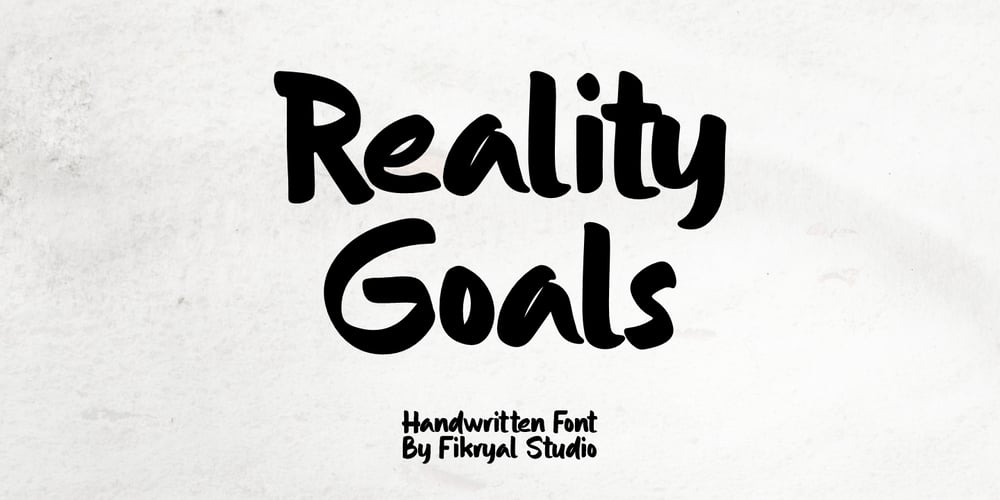
Reality Goals
Reality Goals font
Reality Goals Font Family was designed by Muhammad Fikry and published by Fikryal. Reality Goals contains 1 styles and family package options. Reality Goals is a beautiful and stylish handwritten display font that exudes creativity and inspiration. This font is perfect for a variety of projects, including branding, marketing materials, social media graphics, quotes, invitations, and more.The font features unique and eye-catching letterforms that are carefully crafted to convey a sense of playfulness and sophistication. The characters are designed to appear as if they were hand-drawn, with irregular lines and strokes that add a personal touch to any design.With a bold and modern look, “Reality Goals” is sure to catch the attention of your audience and make a lasting impression. It is versatile and easy to use, and can be paired with a variety of other fonts to create a unique and cohesive look.Reality Goals Multilingual SupportThank you